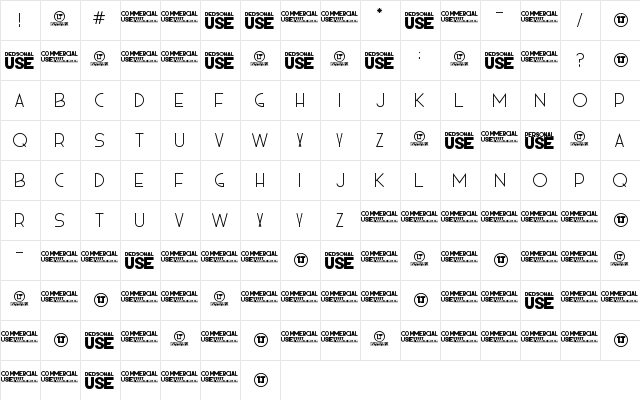
HIELO regular
Design Context for HIELO Typeface
HIELO offers clean, dependable letterforms without strong stylistic allegiance, making it a practical choice for designers who need flexibility.